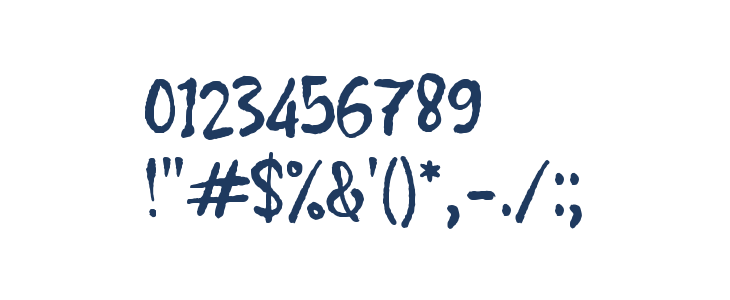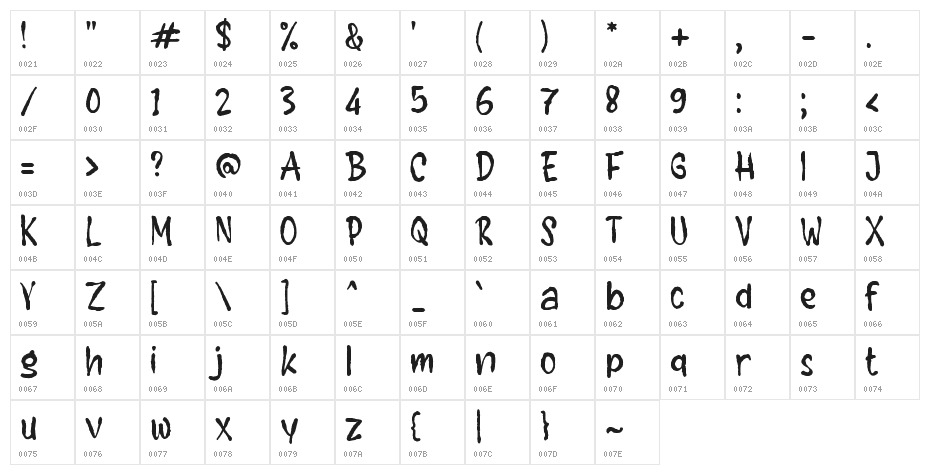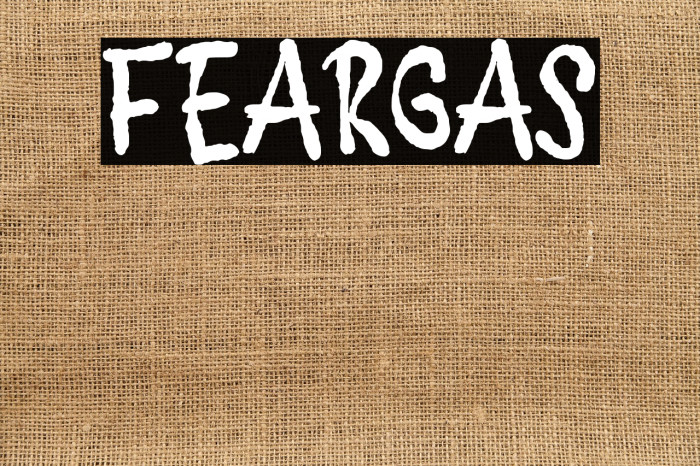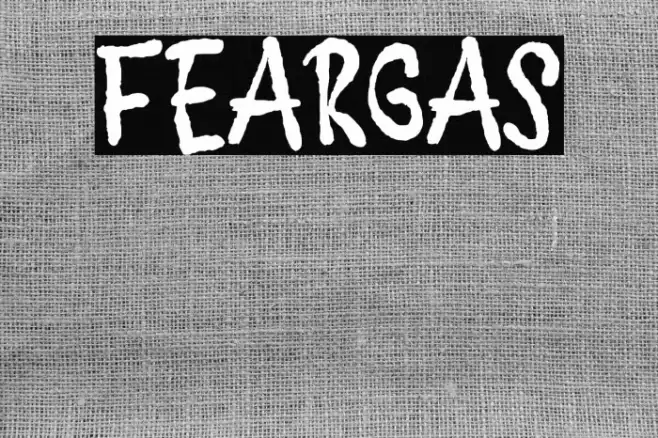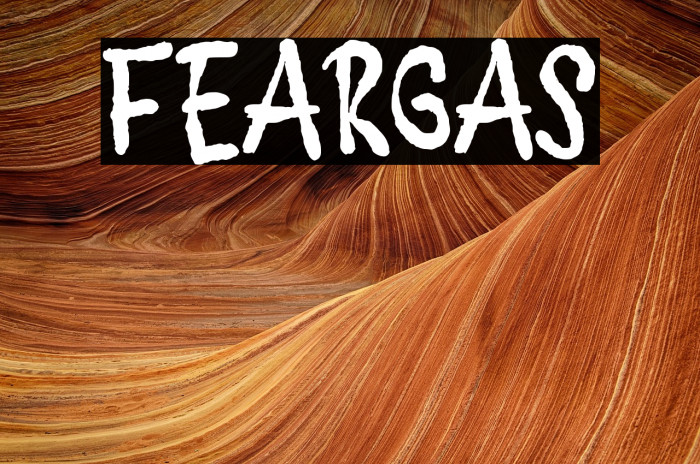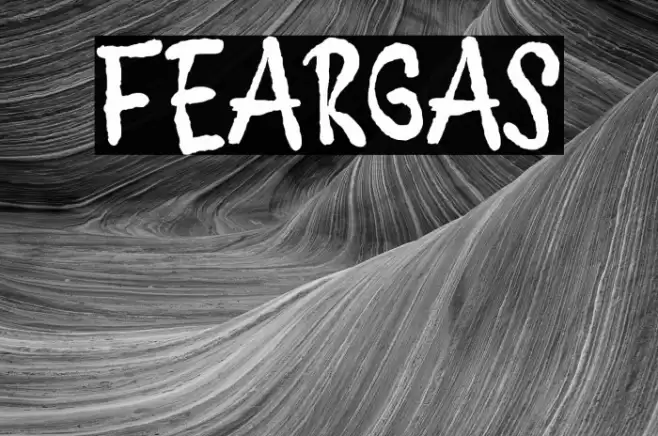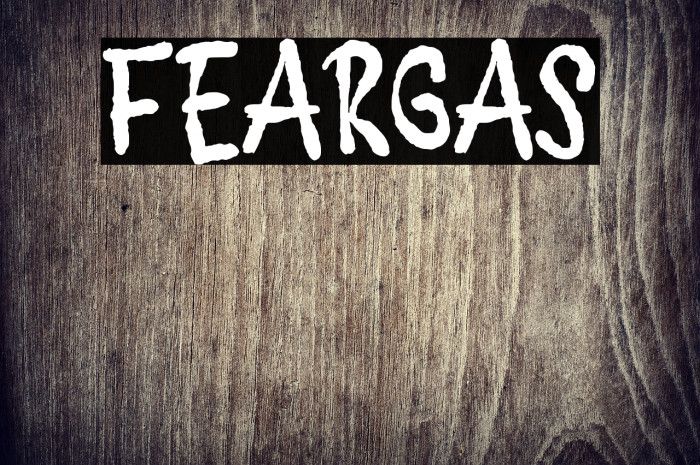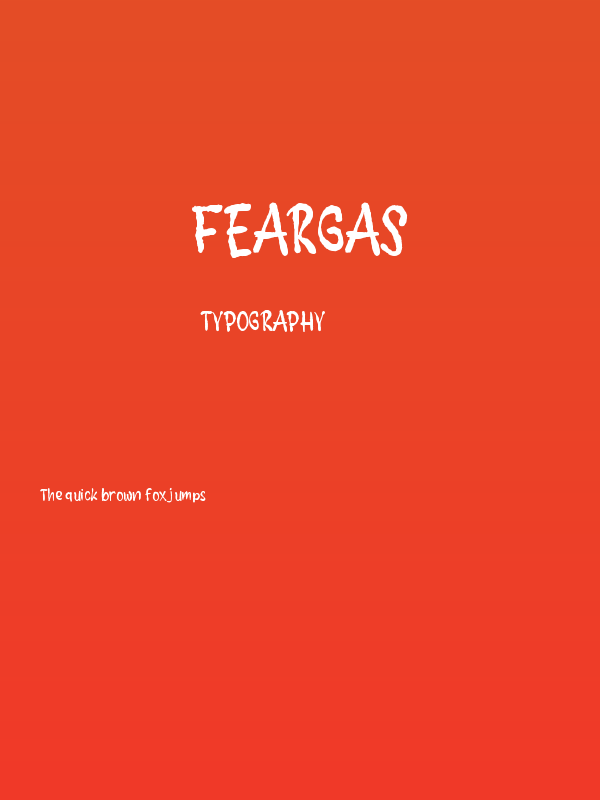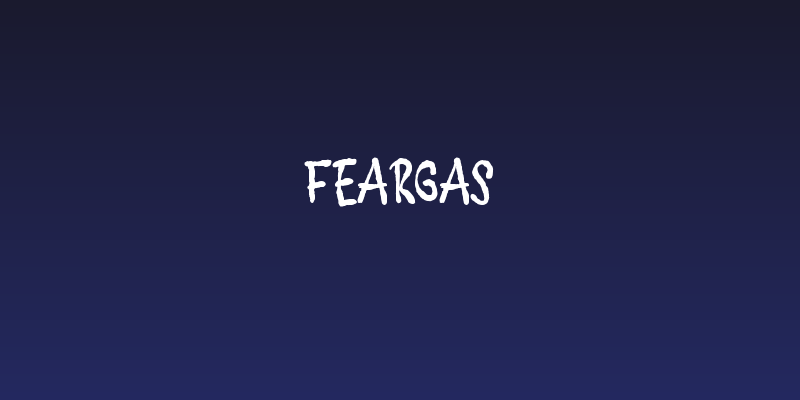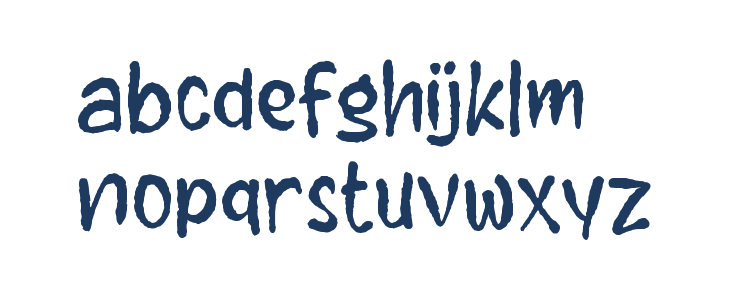
FEARGAS Font
FEARGAS Description
This font features a bold, hand-drawn style with a playful and informal appearance. The letters are slightly irregular, giving it a casual and organic feel. The uppercase and lowercase characters maintain a consistent thickness, contributing to a cohesive look. The numbers and special characters follow the same design, ensuring uniformity across all elements. The strokes are thick and rounded, enhancing its friendly and approachable vibe. This font is ideal for projects that require a personal touch, such as invitations, greeting cards, or creative branding. Its unique style makes it stand out, while still being legible and versatile.
| Proposed Projects | Ideal for invitations, greeting cards, creative branding, and any project needing a personal touch. |